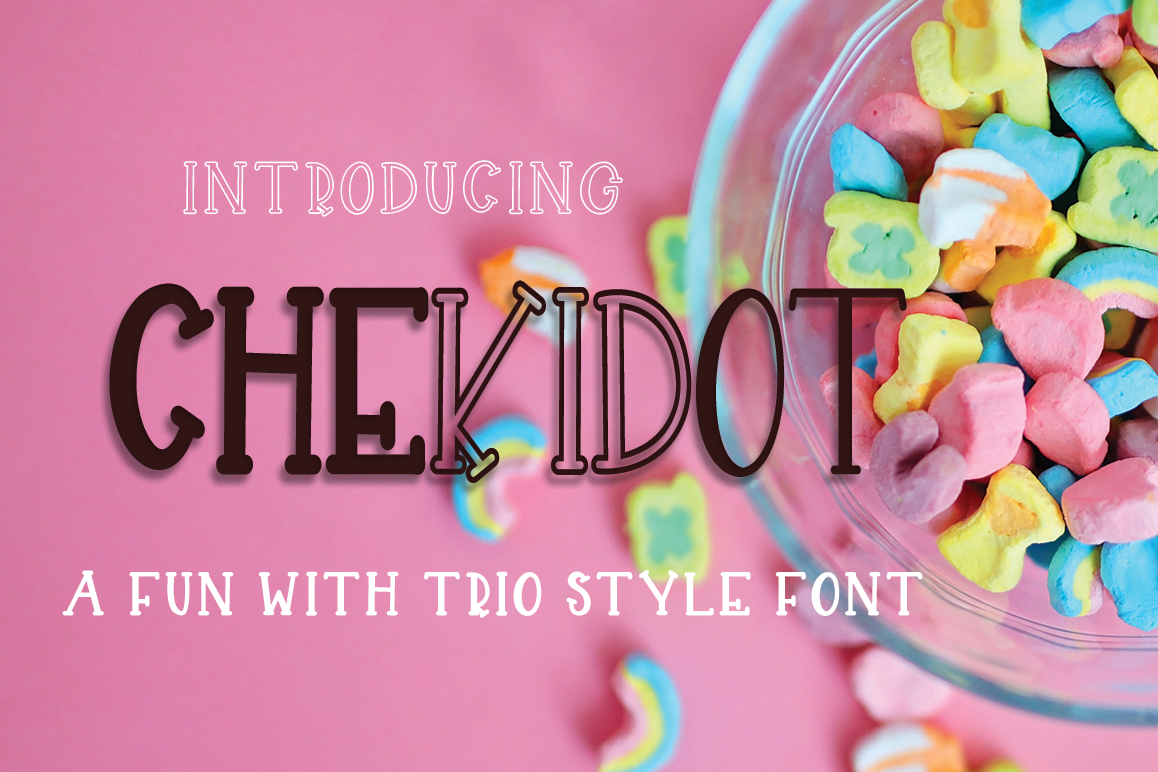
CHEKIDOT - A FUN WITH TRIO STYLE FONT
CHEKIDOT-Bold
CHEKIDOT-OUTLINE
CHEKIDOT-Regular
CHEKIDOT A FUN WITH TRIO STYLE FONT.
1. Uppercase Only
2. International Languange Support
3. Punctuation & Number
4. PUA Unicode